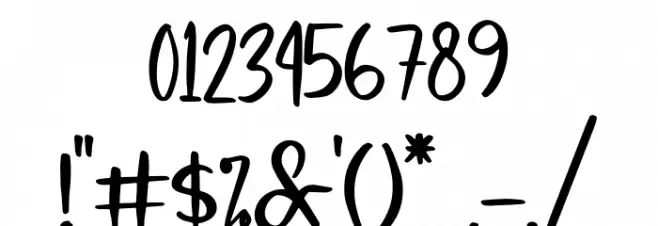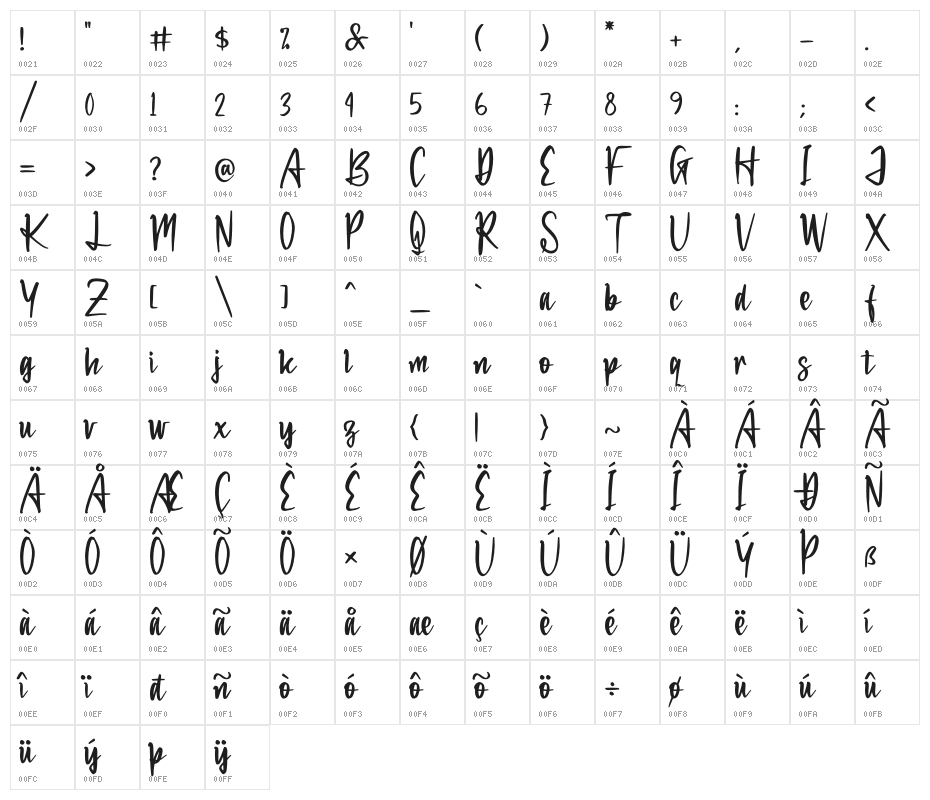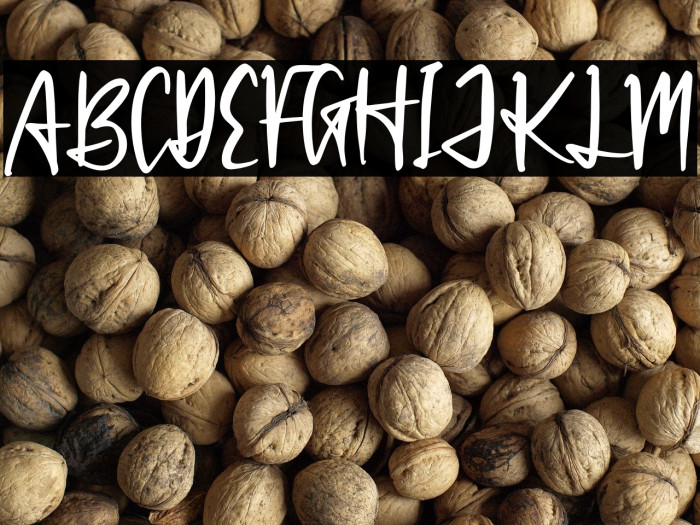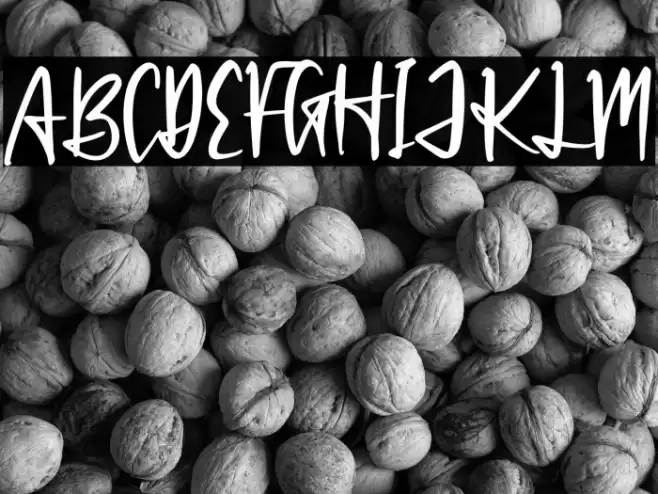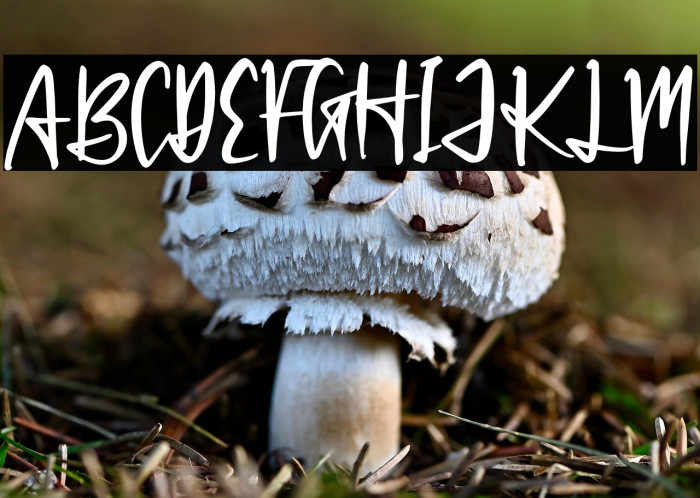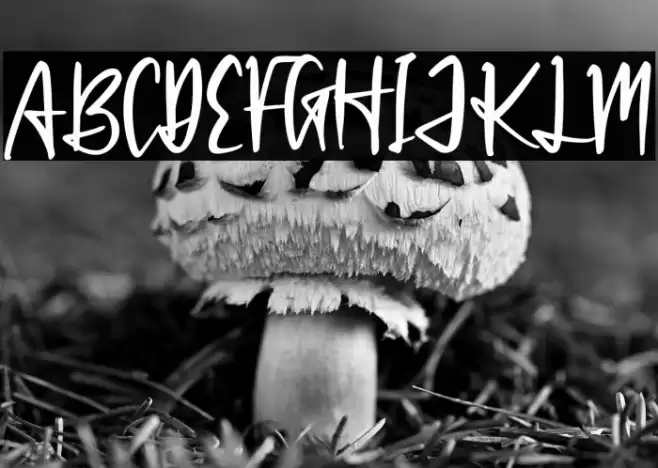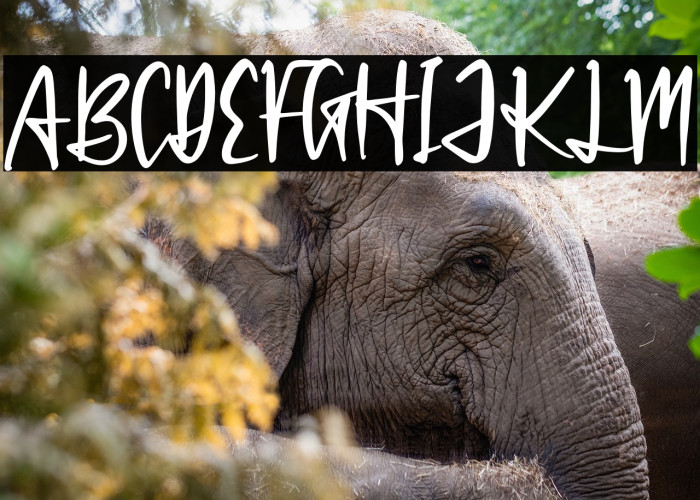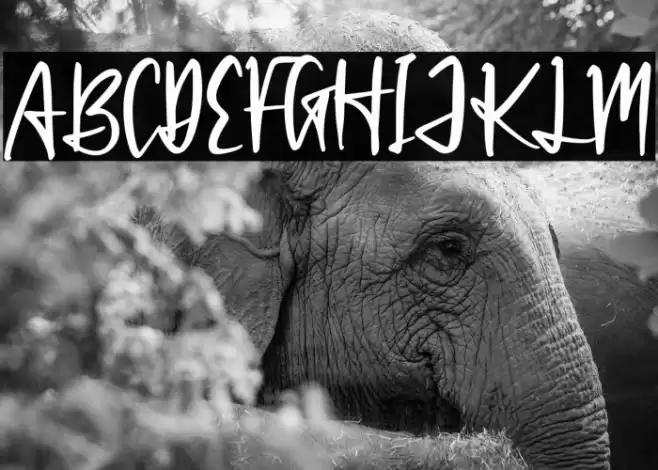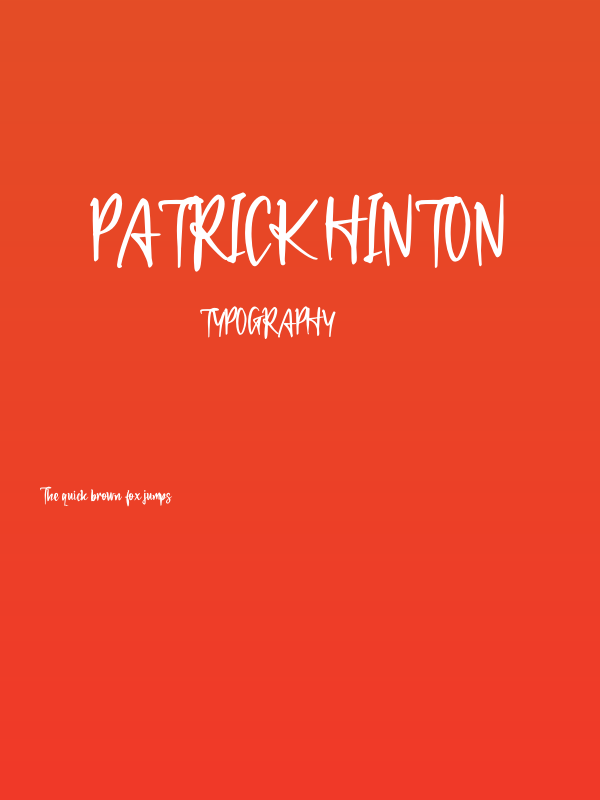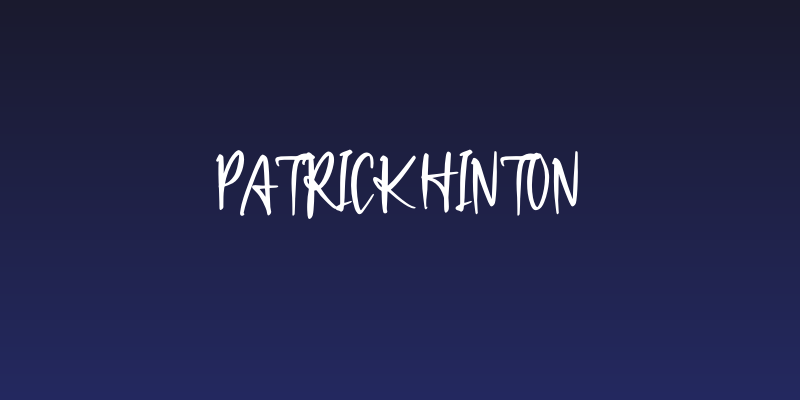
Patrick Hinton Font
Patrick Hinton Description
This font features a bold, handwritten style with a playful and energetic flair. The uppercase letters are tall and slightly narrow, with a mix of straight and curved lines that create a dynamic appearance. The lowercase letters maintain a consistent flow, enhancing the casual and informal vibe. Numbers are clear and legible, matching the overall style of the alphabet. Special characters are creatively integrated, adding to the font's versatility. The strokes are thick and consistent, providing a strong visual impact.